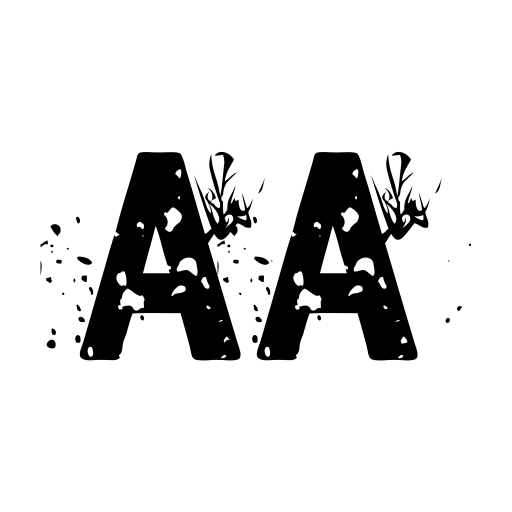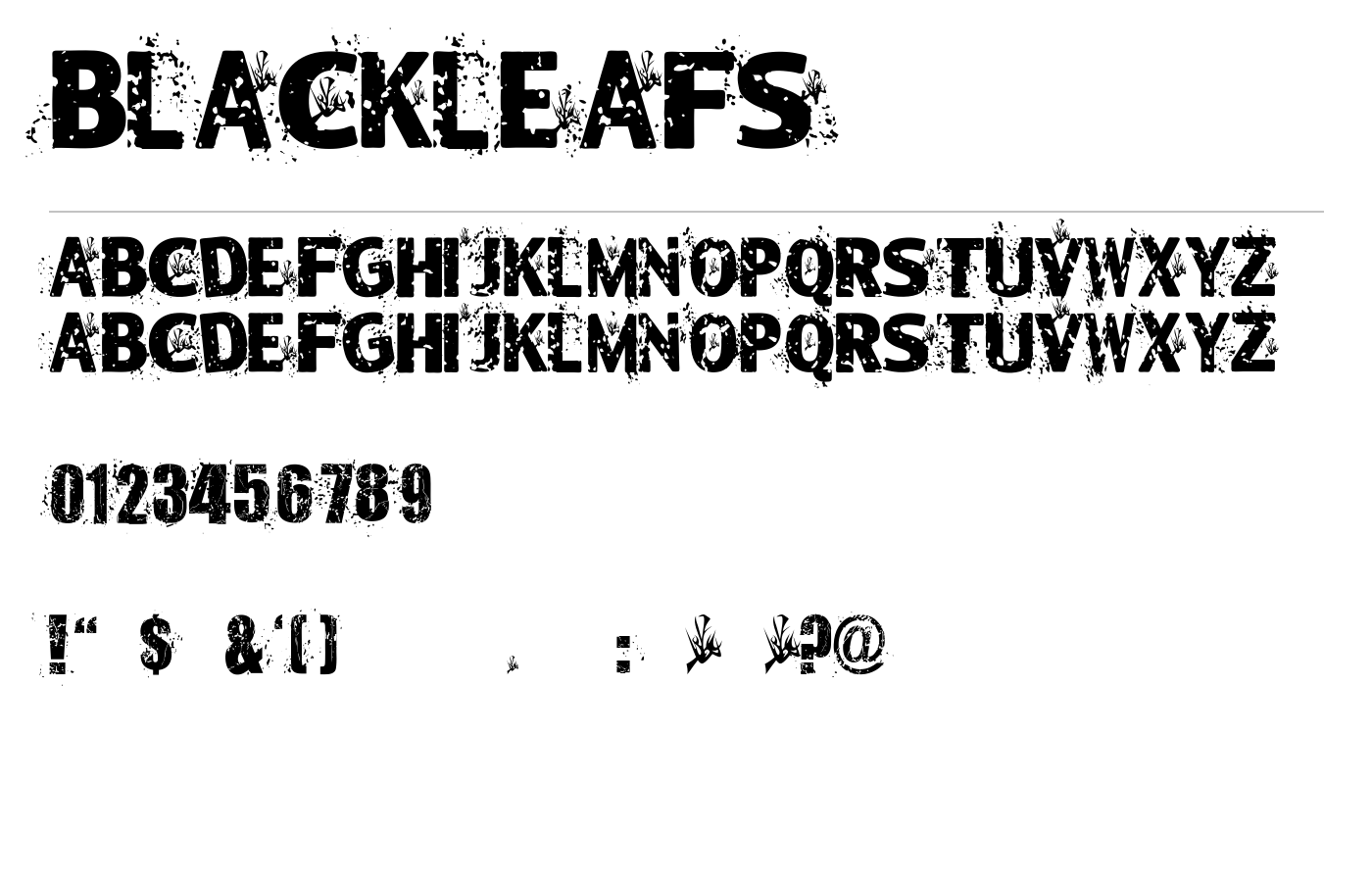
Blackleafs is a bold, condensed sans serif font with a distressed, grungy texture that gives it a rugged and edgy character. Its rough, worn strokes make it ideal for designs that aim to convey a raw, urban, or rebellious vibe, perfect for posters, logos, and branding in music, streetwear, or alternative culture. This font stands out with its strong presence and textured style, adding personality and impact to any creative project.
Blackleafs Font
About Blackleafs Font